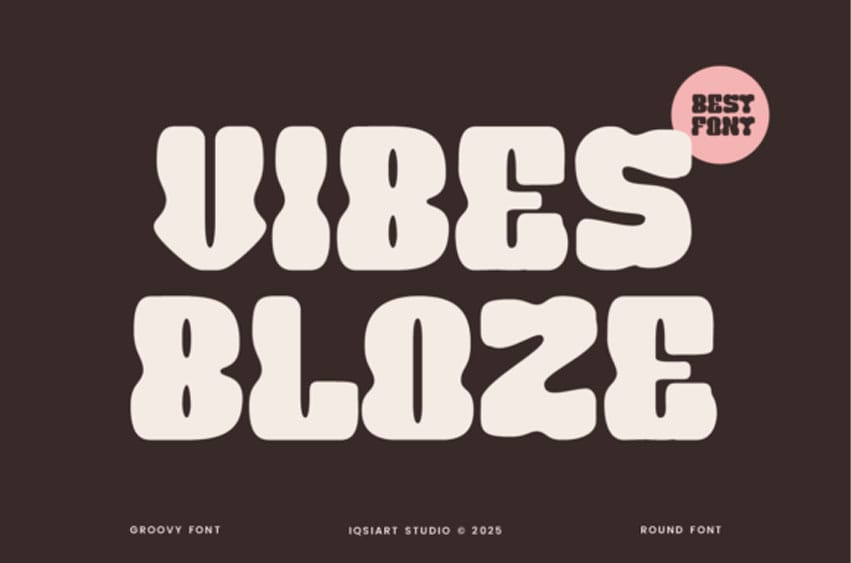
Vibes Bloze Font is a bold, retro-inspired display font with curvy, bubbly forms that radiate groovy energy.
Ideal for vintage posters, music branding, merch, and eye-catching headlines, this font oozes style and personality. Bring the retro era back to life with this one-of-a-kind statement typeface!